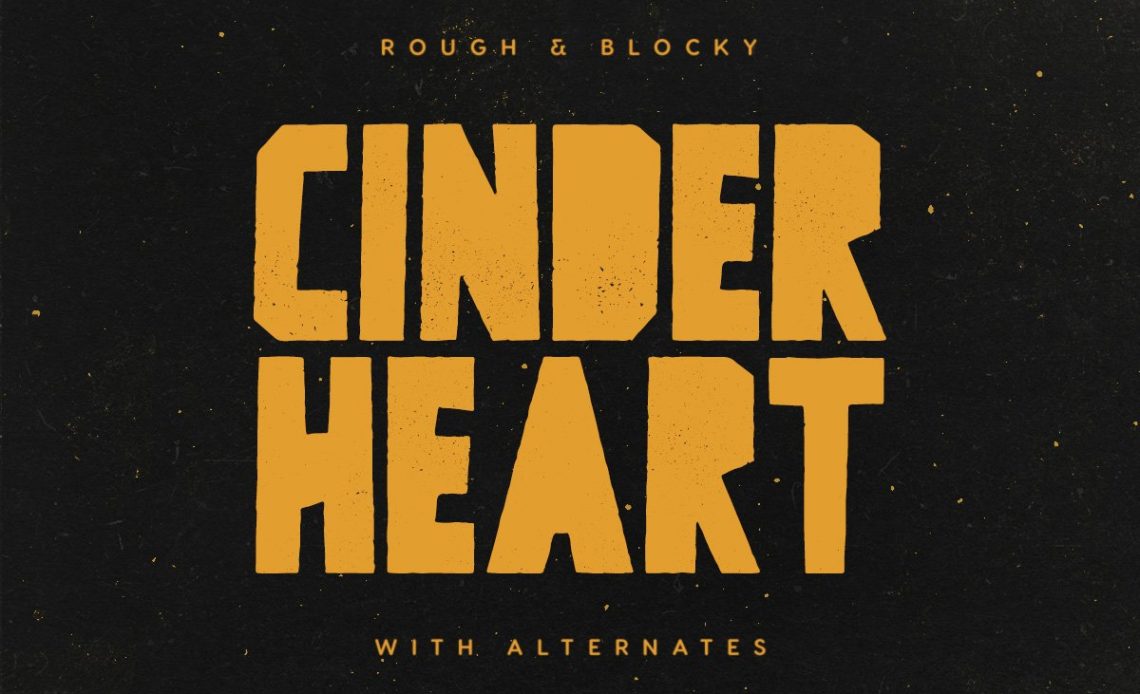
Attention all musicians and music lovers! Introducing Cinderheart, the best font for music cover designs. Created by the talented UI and type designer, Mehmet Tugcu, Cinderheart is a rough and blocky display font that will take your music covers to the next level.
This font is not your average display font. With a rough outer texture and subtle inner texture, Cinderheart is the perfect font to add an edgy and raw touch to your music cover designs. The English uppercase letters, alternate letters, numbers and punctuation included in this font family ensure that you have everything you need to create the perfect design.
Cinderheart is the ideal choice for musicians and bands who want to create a powerful and emotional impact with their music covers. This font will help you stand out from the crowd and capture your audience's attention. Whether you're a solo artist or part of a band, Cinderheart is the font for you.